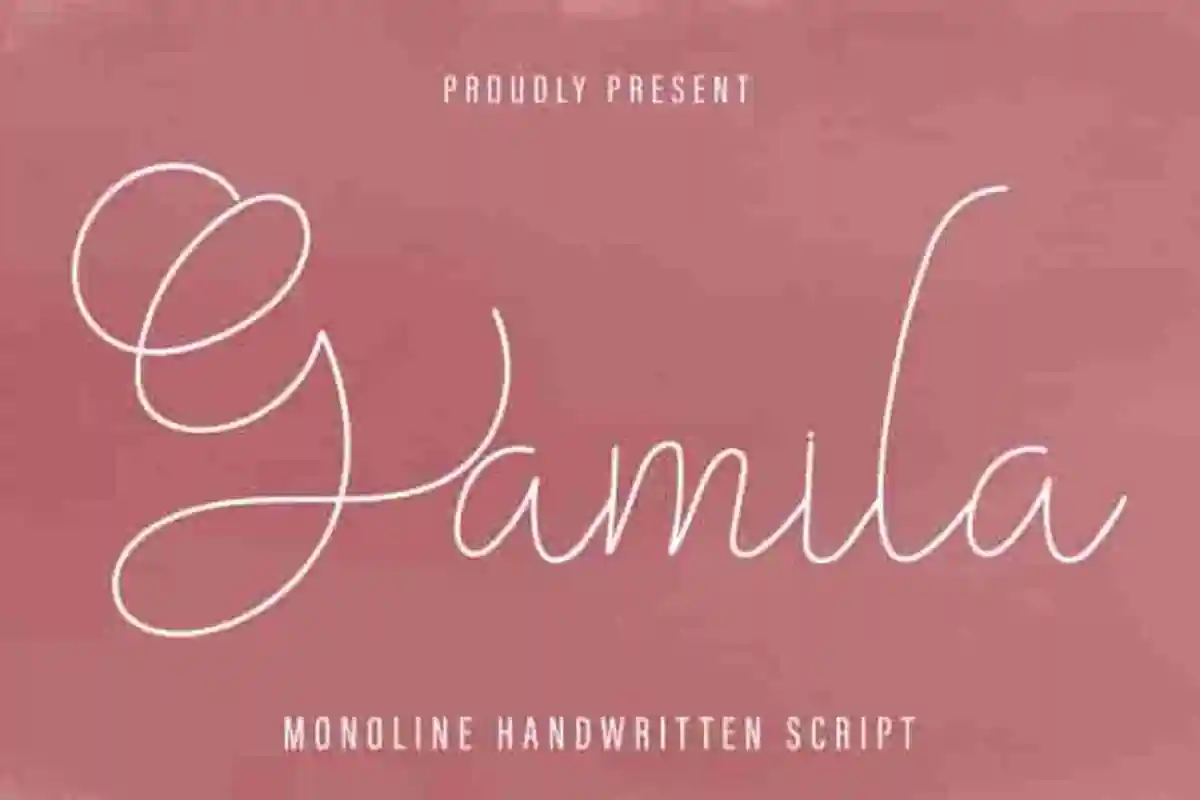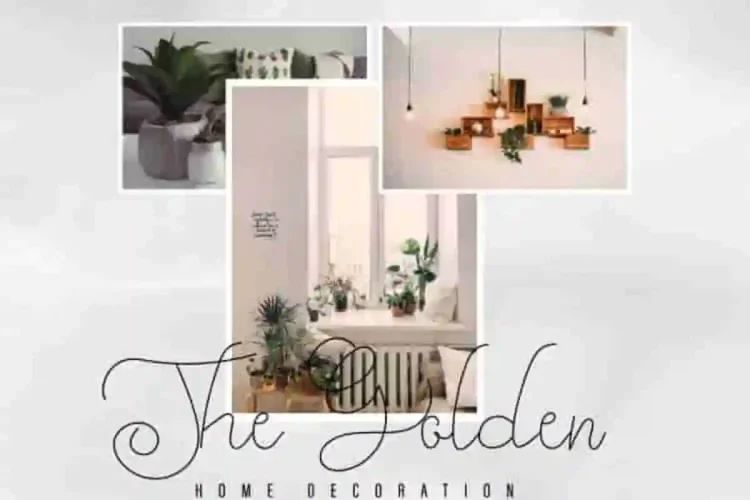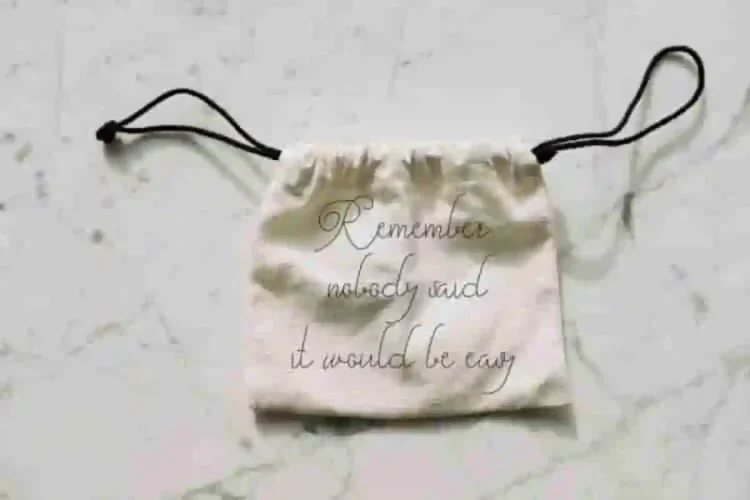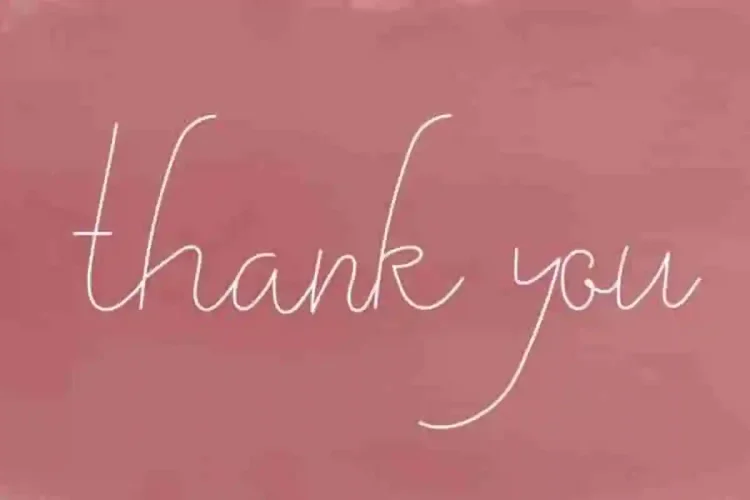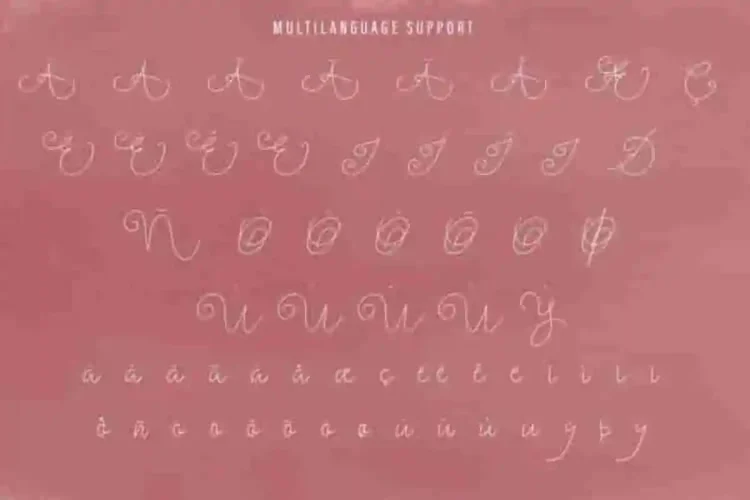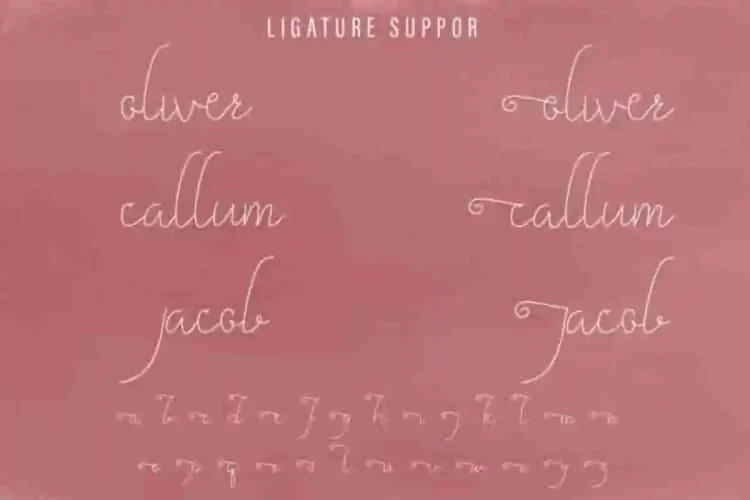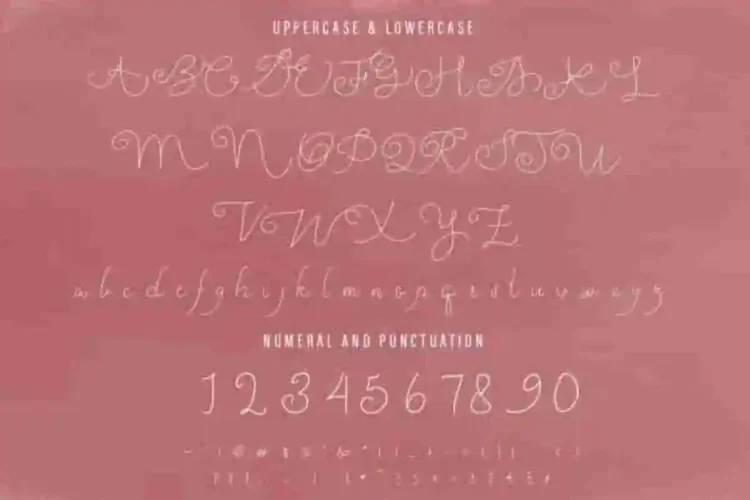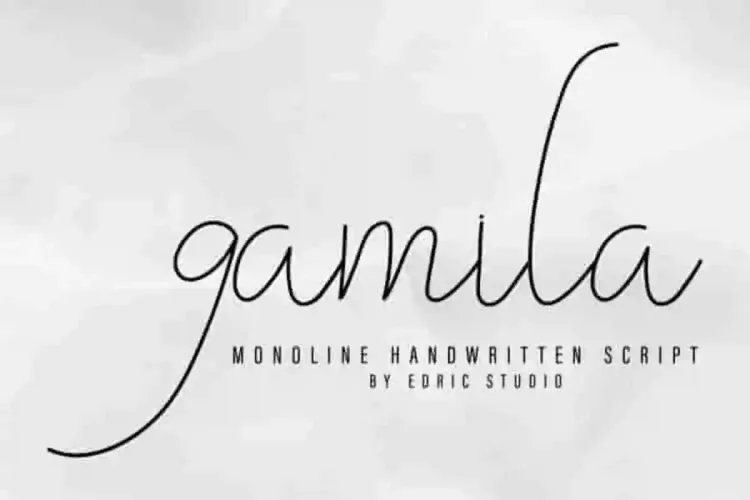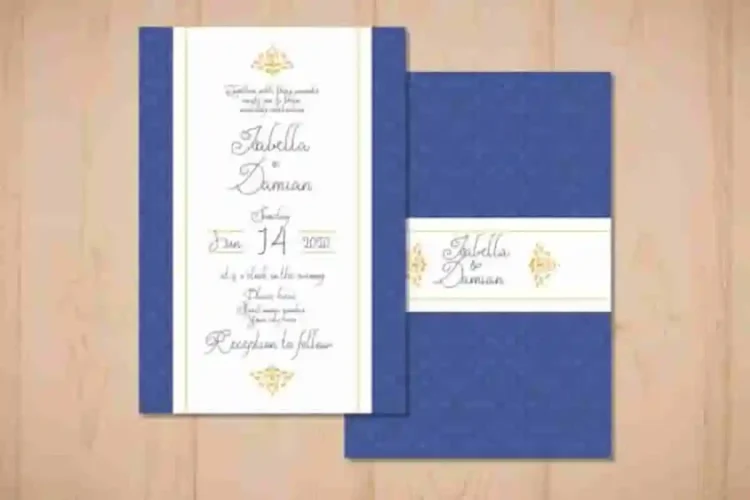
Gamila Thin Calligraphy Script Font
Introducing our latest font  : Gamila Thin Calligraphy Script Font
This is a calligraphy script signature font, handcrafted from our Studio here in, Indonesia. The artists/designers of this beautiful tyeface is Saila and Suci.
Gamila Thin Font is an exclusive calligraphy script typeface with one line monoline style. This font has a stunning characters set, perfectly managed with well spaced and kerning.
Gamila Thin Font will be great for any projects including : branding, logo, stationery, business card, signage, flyer, brochure etc. Almost all industries will be match for this typeface: wedding, events, real estate, architect, law firm, florist, gardening, makeup artist, travel, hotel, musician etc